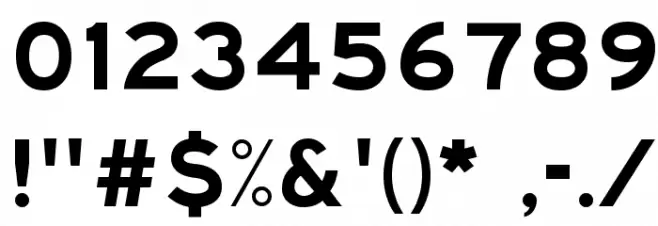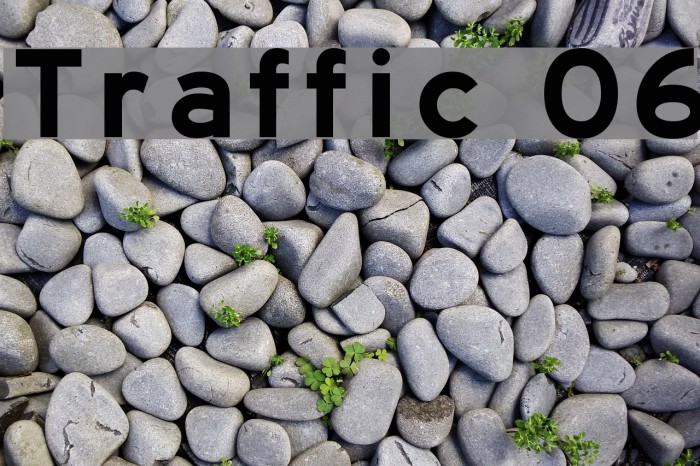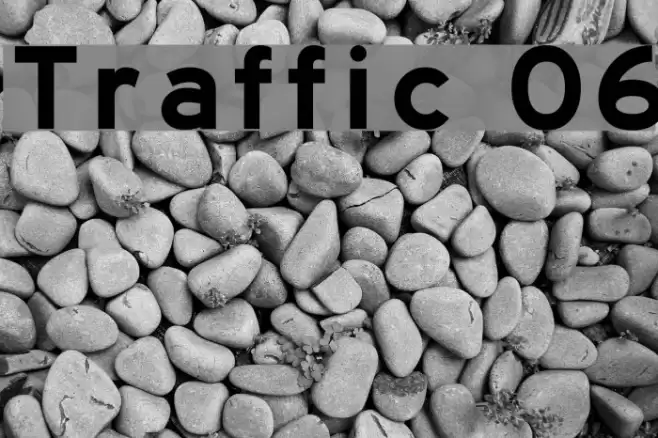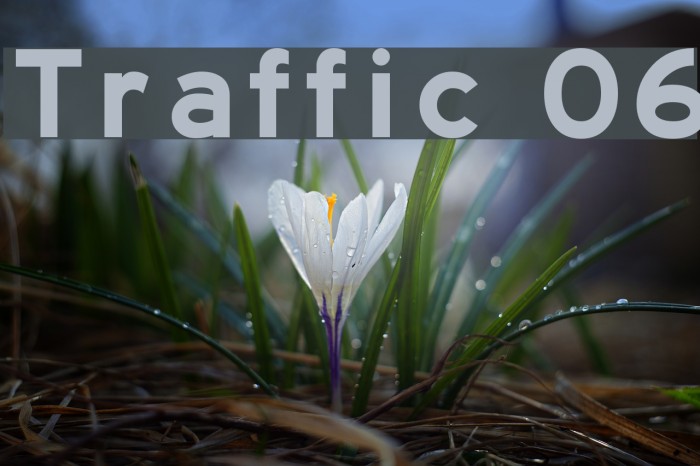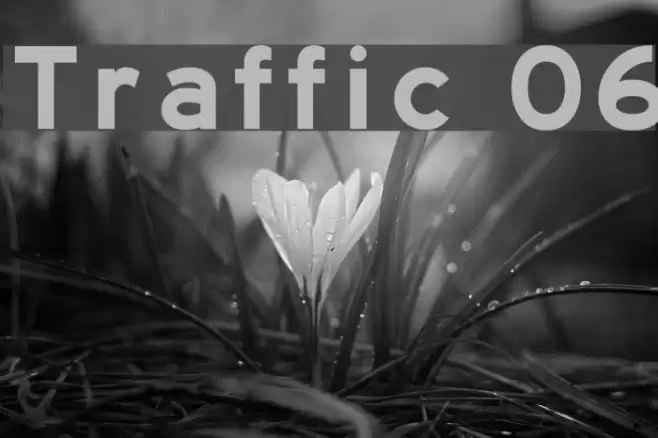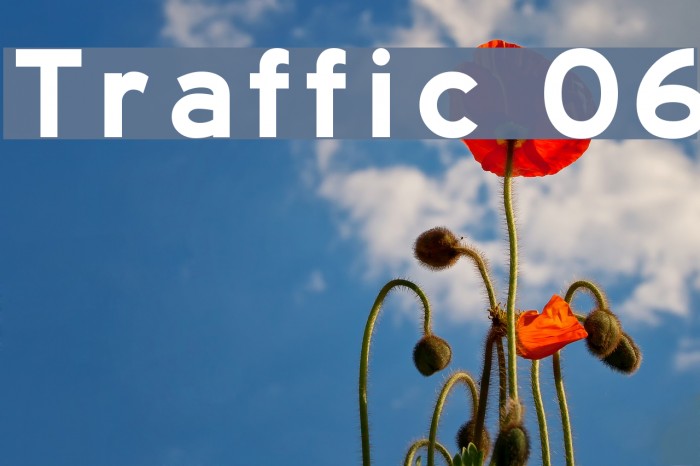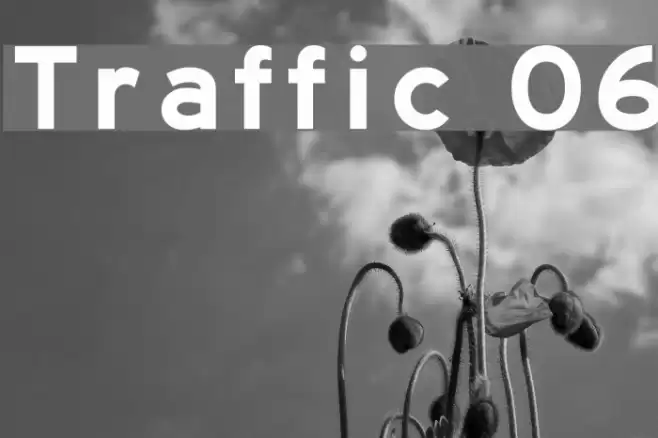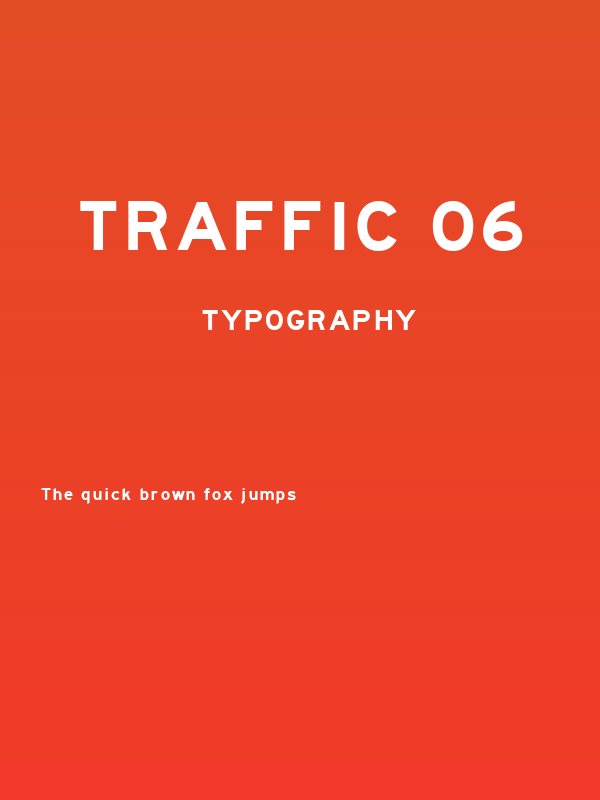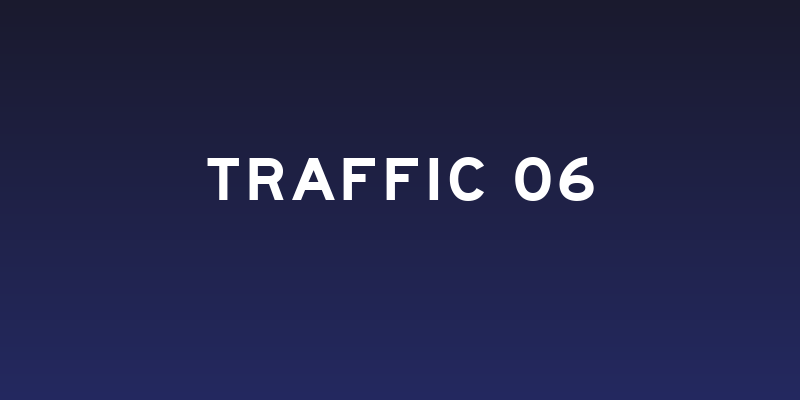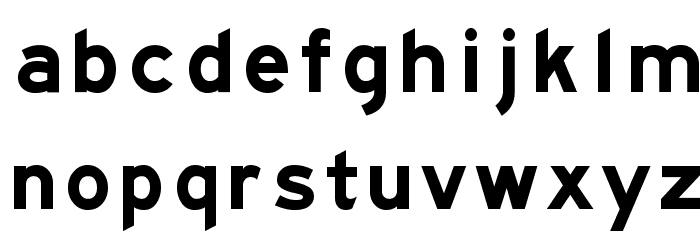
Traffic 06 Font
Traffic 06 Description
This font features a bold and modern sans-serif design, characterized by clean lines and a strong geometric structure. The uppercase letters are uniform in height, creating a sense of balance and stability. The lowercase letters maintain a consistent x-height, contributing to readability and a cohesive appearance. The numerals are clear and distinct, making them suitable for various applications. Special characters are well-defined, adding versatility to the font's use. The overall style is straightforward and impactful, making it ideal for attention-grabbing headlines and signage.
| Use Case | Headlines, Signage, Branding |
| Proposed Projects | Ideal for use in signage, branding, advertising, and digital interfaces where clarity and impact are essential. |